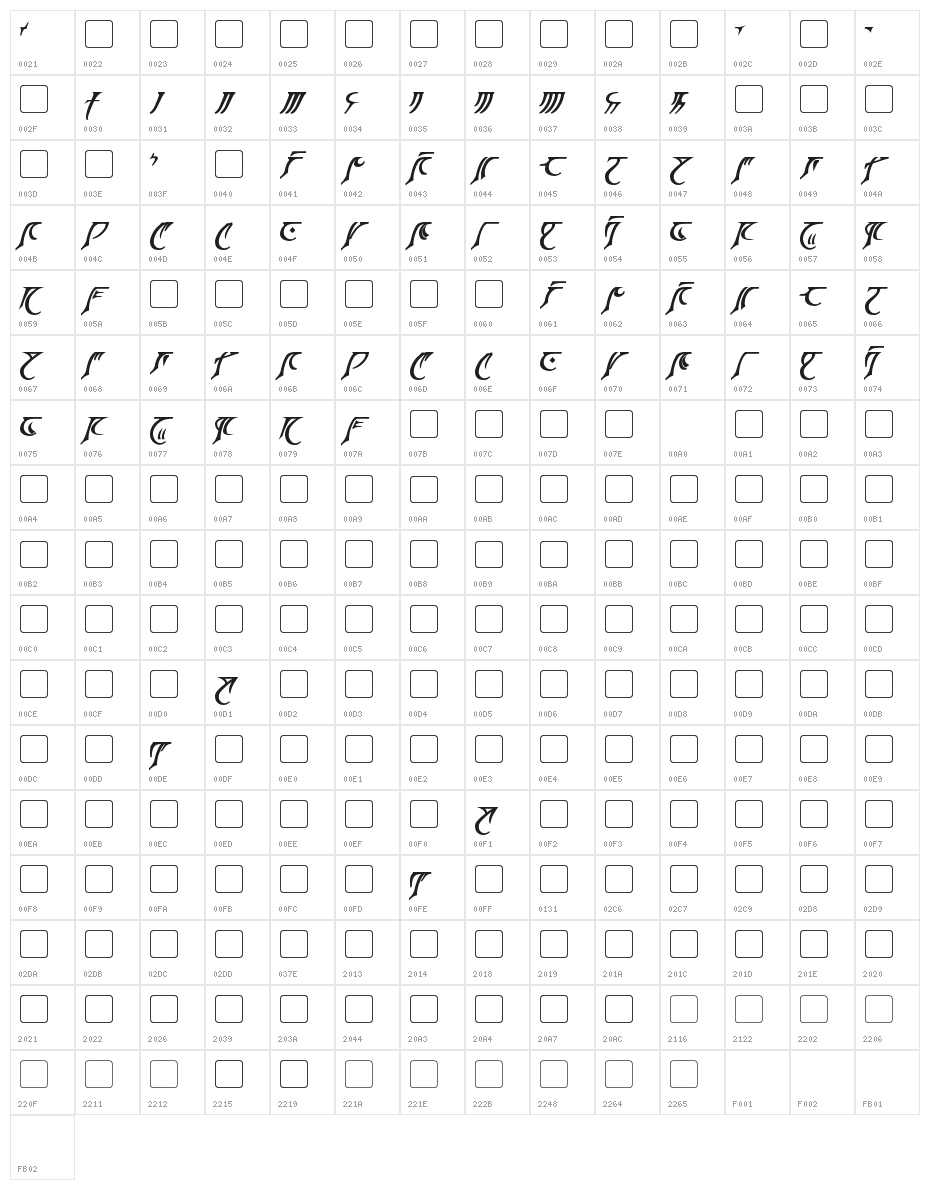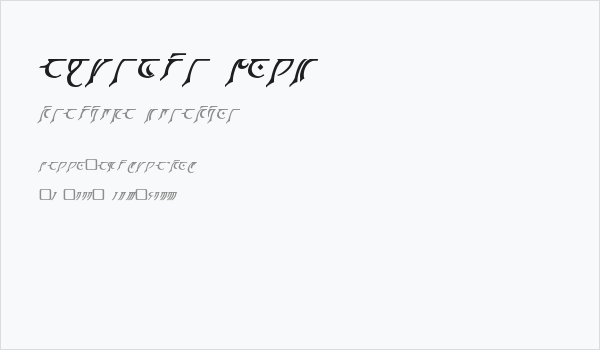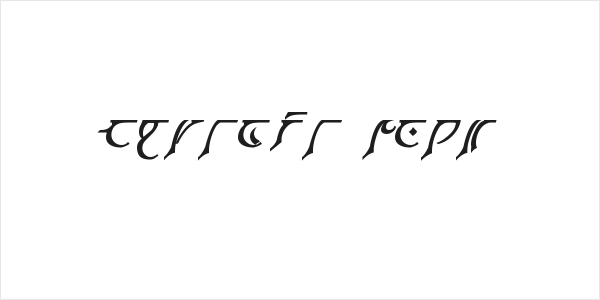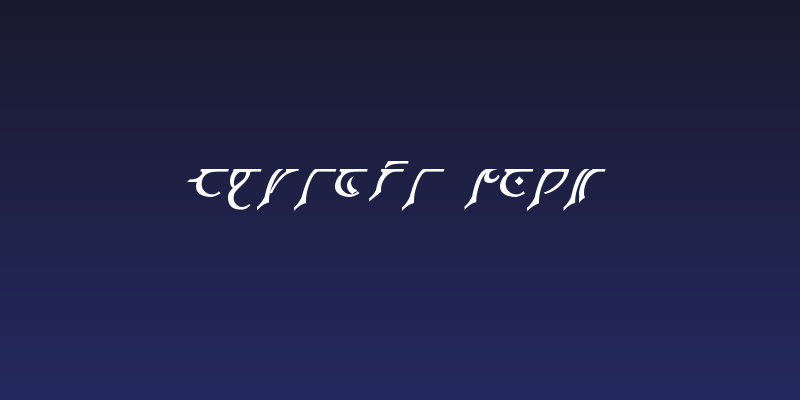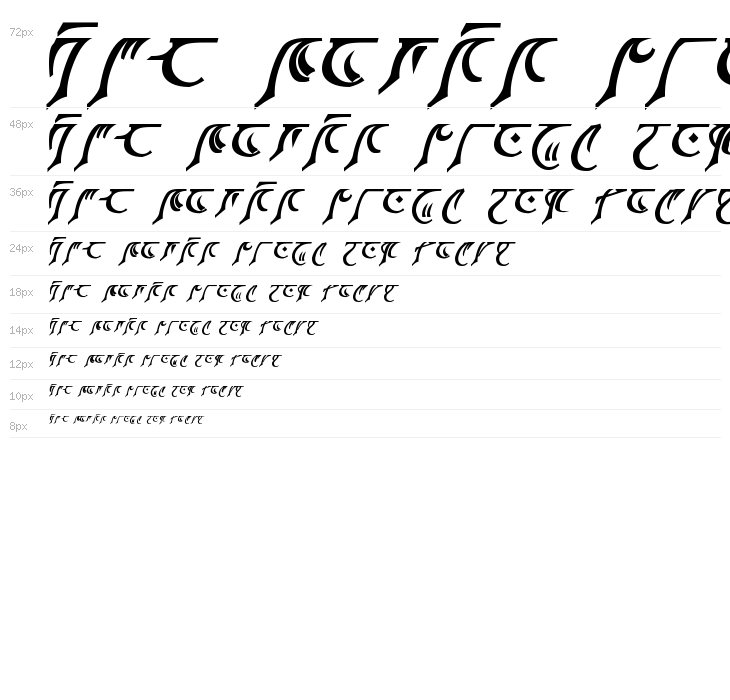
Espruar Bold Font
Espruar Bold Description
This font features a unique and decorative style, reminiscent of ancient scripts with a modern twist. The characters are bold and exhibit sharp, angular lines with a flowing, calligraphic influence. Each letter is distinct, with exaggerated curves and pointed serifs that give it a mystical and fantasy-like appearance. The uppercase and lowercase letters maintain a consistent style, while the numbers and special characters blend seamlessly into the overall design. This font's boldness and intricate details make it stand out, suitable for creative and thematic projects.
Proposed ProjectsIdeal for fantasy-themed designs, game titles, book covers, and decorative posters.